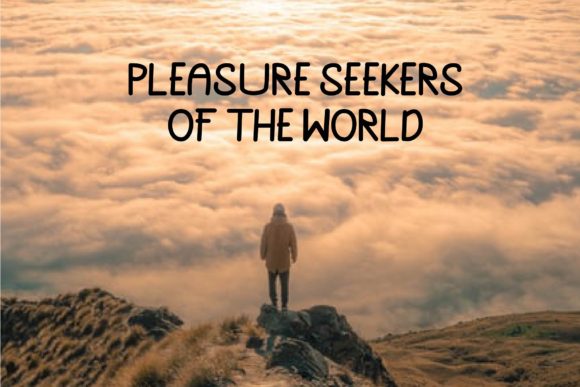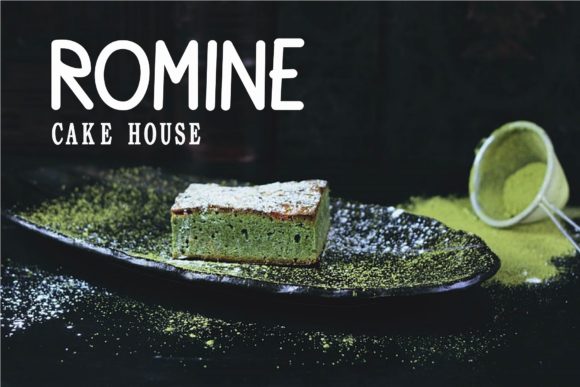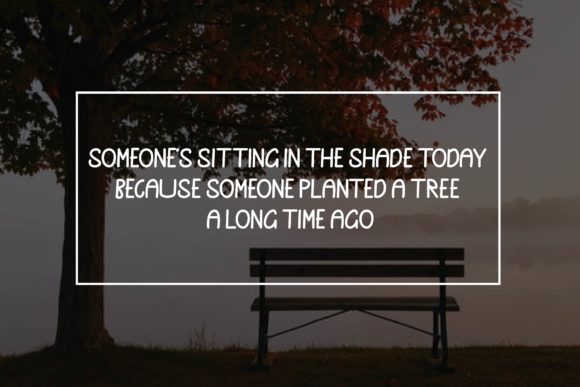
Introduction to Nobar Font
Have you ever found yourself staring at a blank canvas, waiting for the perfect font to bring your creative project to life? That’s a moment we’ve all experienced, and it’s a moment that can be both exhilarating and frustrating. But what if I told you that there’s a font that can make all the difference, elevating your designs and leaving a lasting impression on your audience?
Nobar Font is a high-quality monoline display font that’s perfect for branding, product packaging, and so much more. Its clean lines, modern aesthetic, and transparent background make it an invaluable resource for designers looking to take their creative projects to the next level. Whether you’re working on a logo, invitation, or t-shirt design, Nobar Font is the perfect companion to help you achieve your vision.
- Unique characteristics include elegant and modern typography, making it ideal for branding and marketing materials.
Honest Review: Nobar Font
I recently stumbled upon the Nobar Font, a high-quality design resource that’s perfect for creative projects. The first thing I noticed was the clean and modern aesthetic of the font, which makes it a great choice for a variety of applications.
- High-quality design: The Nobar Font is incredibly well-designed, with a focus on clarity and readability.
While I love the Nobar Font, I do have a few criticisms. The font is limited in terms of character sets, which may be a problem for designers who need to create content in multiple languages. Additionally, the font is not suitable for large-scale commercial use, which may be a limitation for some designers.
Overall, I think the Nobar Font is a great design resource for creative projects, but it’s essential to be aware of its limitations before using it in a commercial context.
Nobar Font
To get the most out of Nobar Font, use it in combination with other design elements to create a visually appealing design. Experiment with different font sizes, colors, and arrangements to find the perfect balance.
Nobar Font is ideal for creative projects such as:
- Business card design
- Infographic design